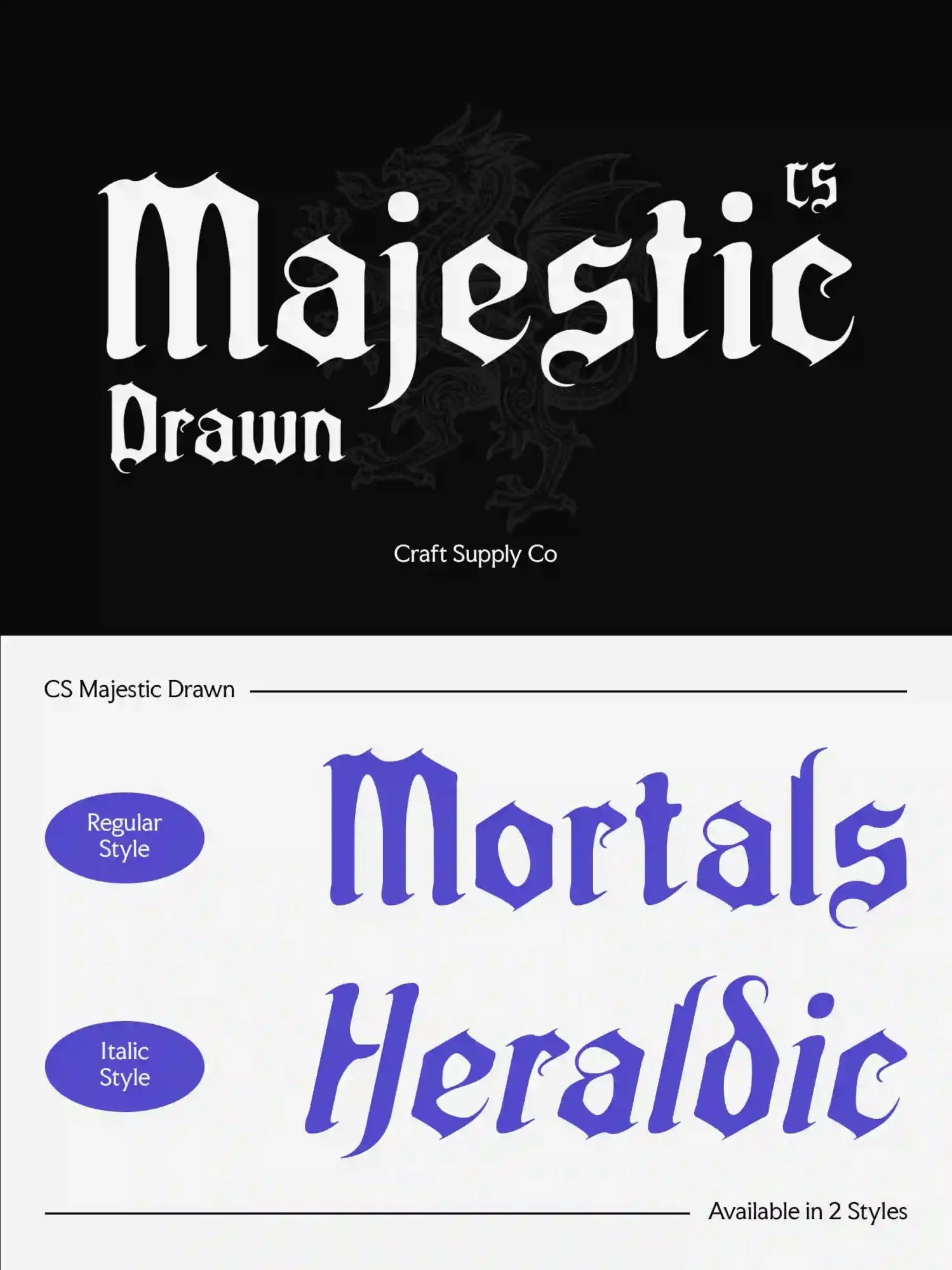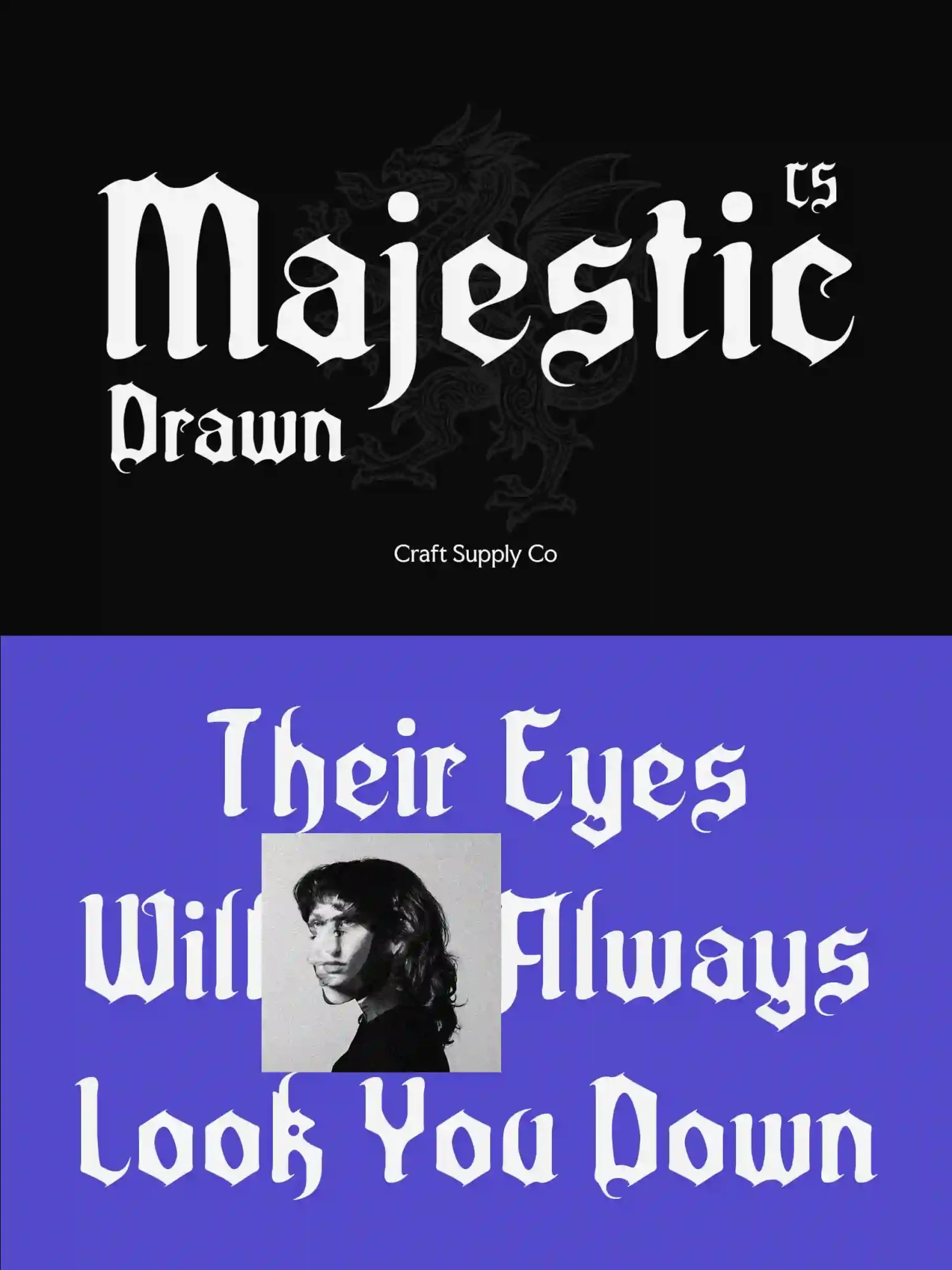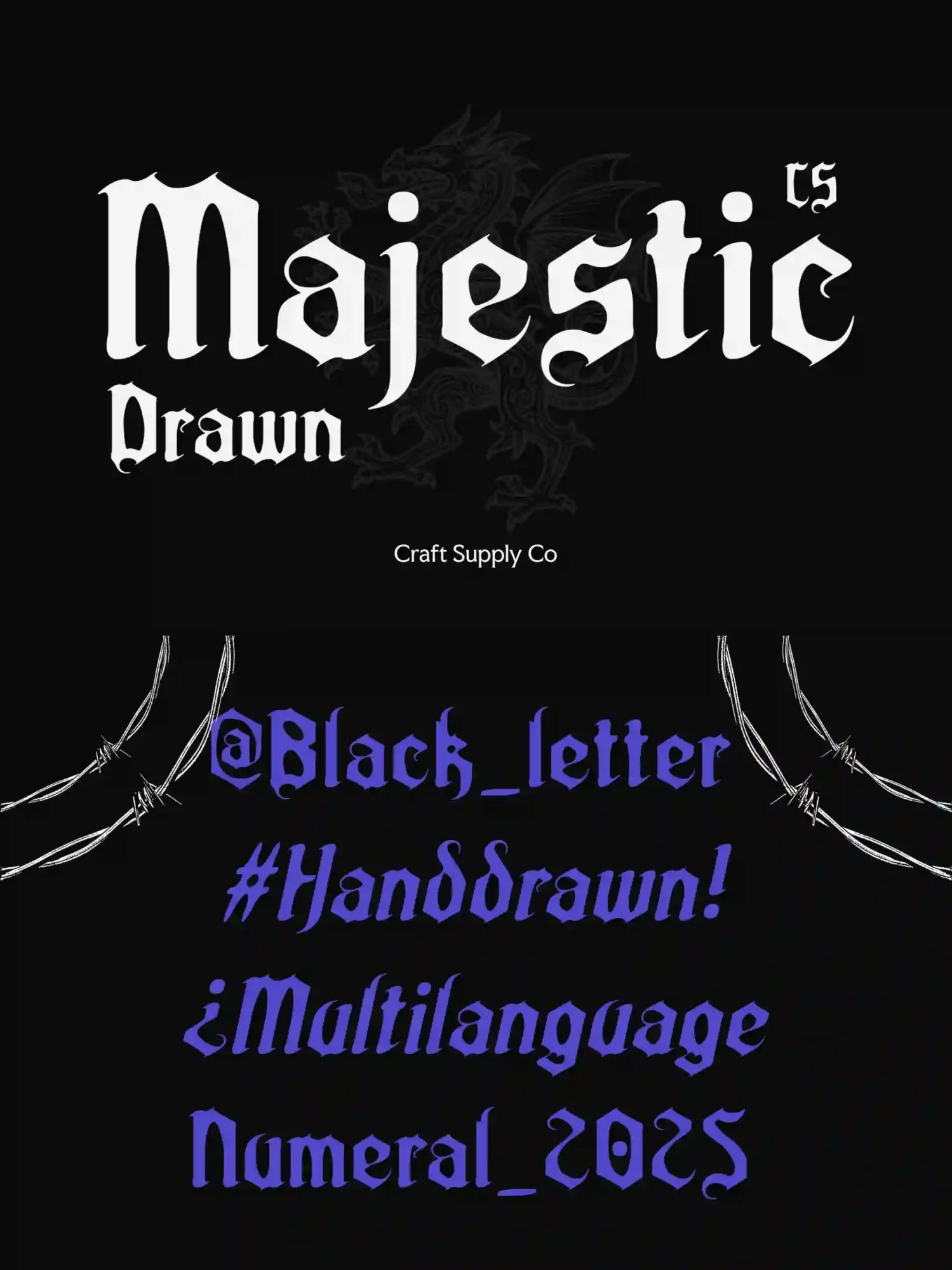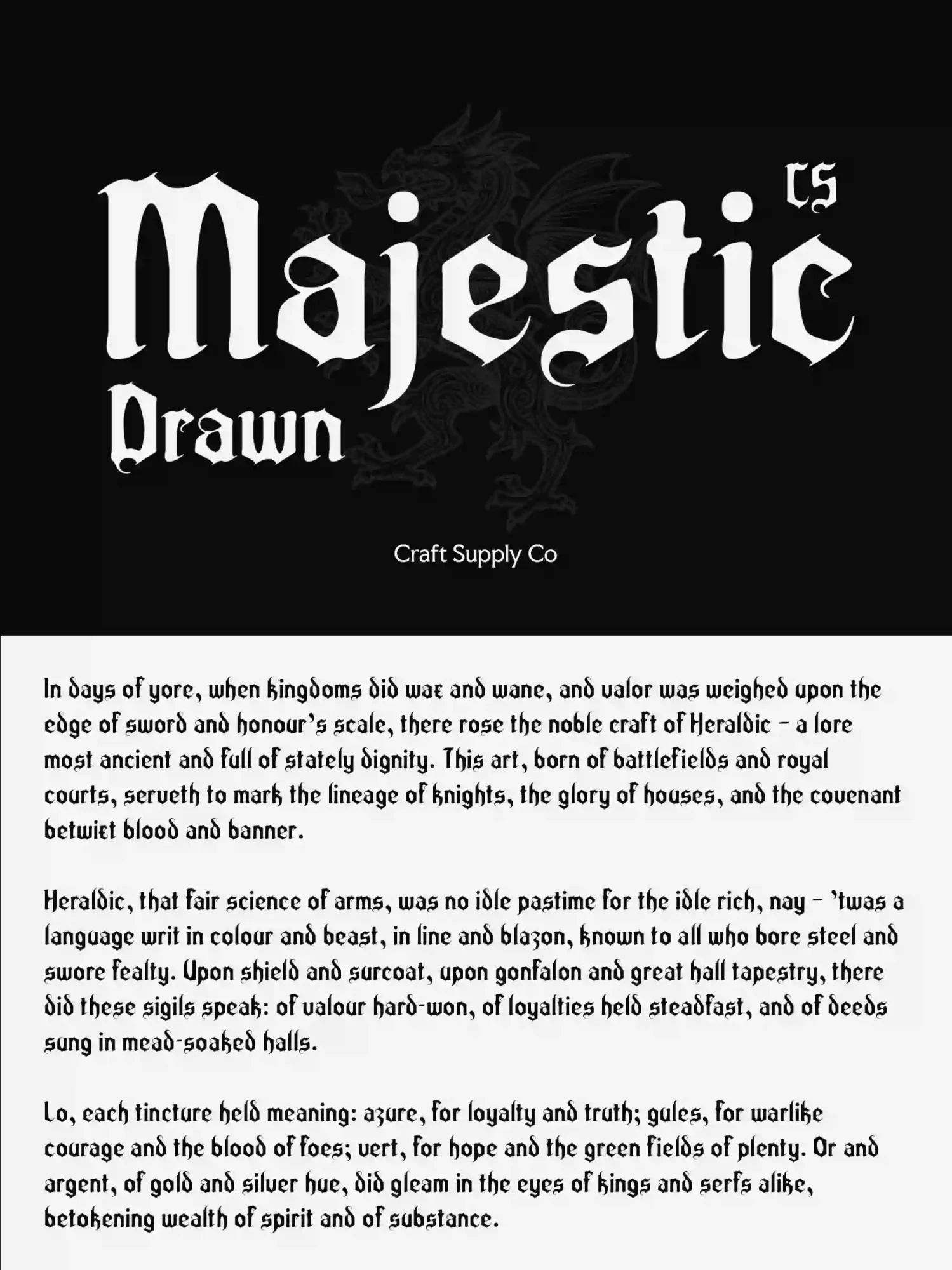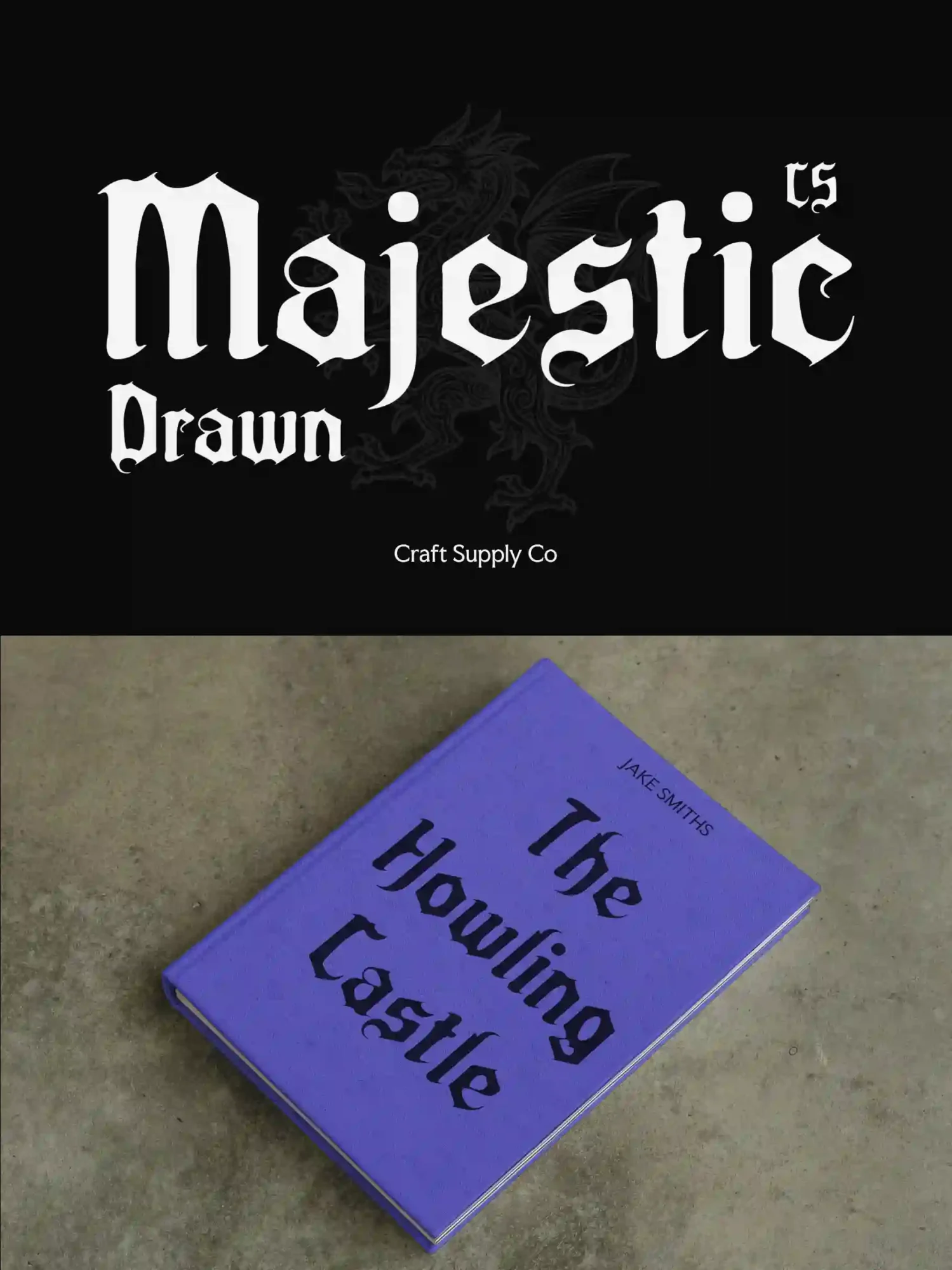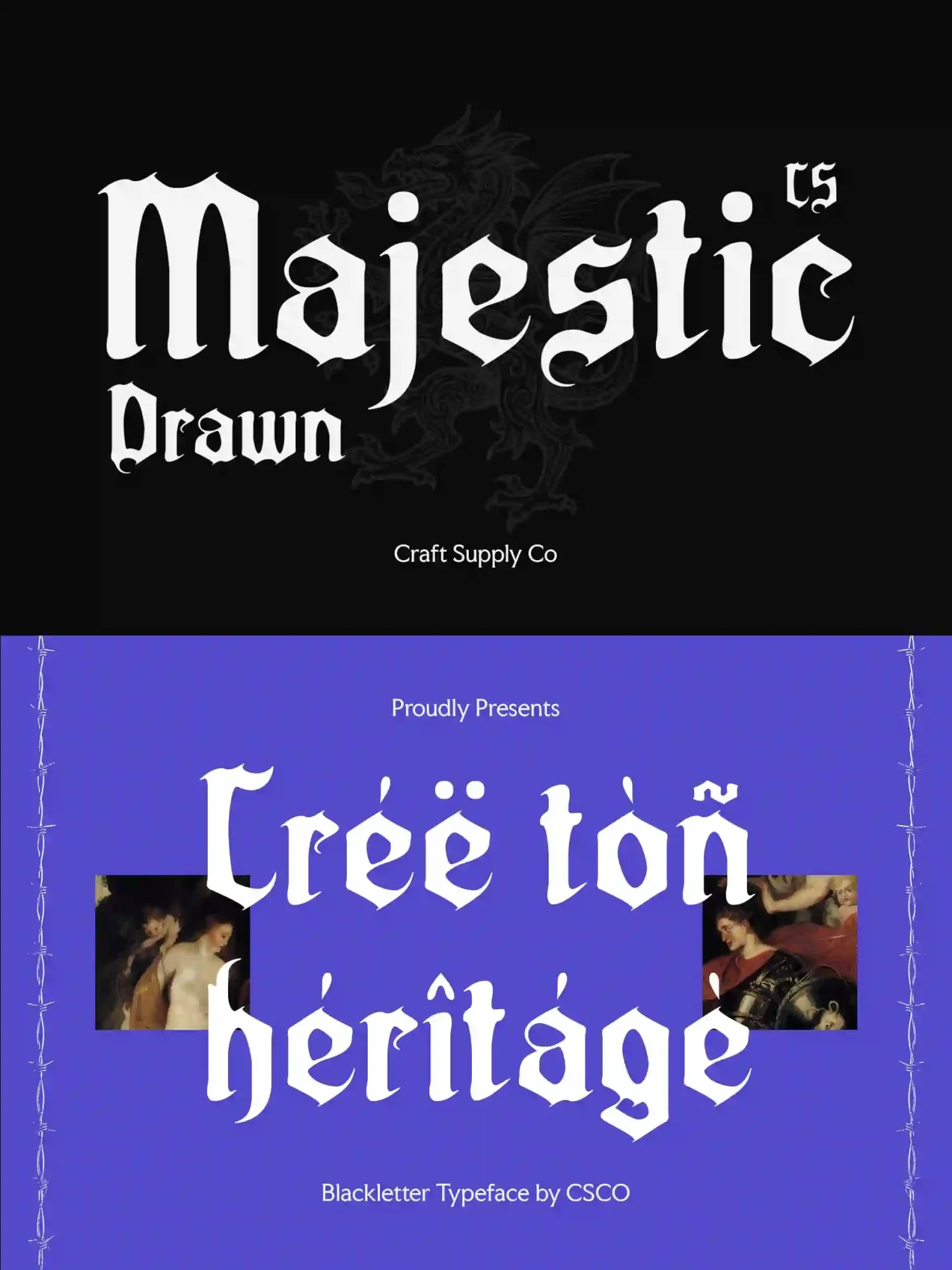
CS Majestic Drawn – Expressive Modern Blackletter with a Handcrafted Soul
Bold Tradition with an Artistic Twist
CS Majestic Drawn brings a fresh take on the blackletter genre, blending classic gothic influences with a modern, drawn aesthetic. Its bold, dramatic letterforms are accentuated by an organic, handcrafted texture, giving the font a raw yet refined presence that feels both timeless and experimental.
Mysterious, Bold, and Full of Character
This display font’s sharp angles and flowing strokes create a rhythm that feels dark, expressive, and powerful—perfect for evoking a mysterious or theatrical atmosphere. The drawn look introduces a sense of imperfection and artistry, setting it apart from sterile digital fonts and lending a human touch to your designs.